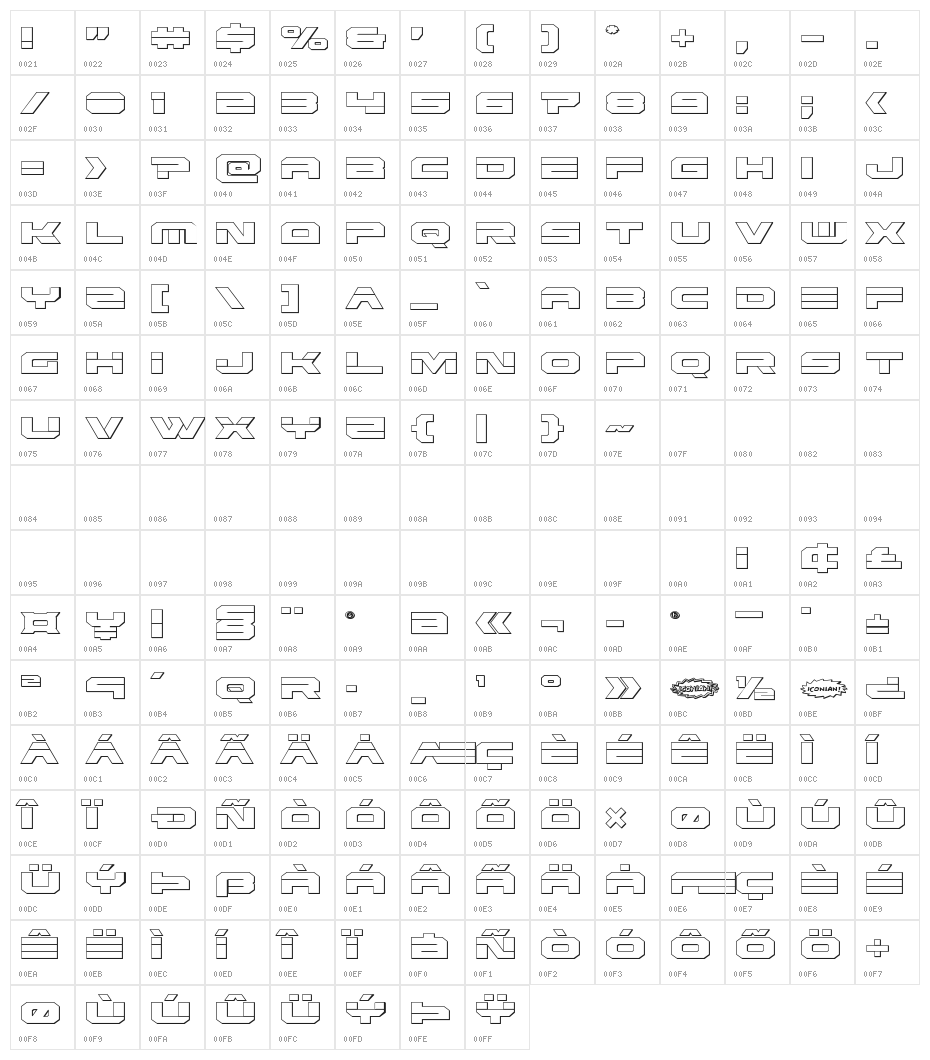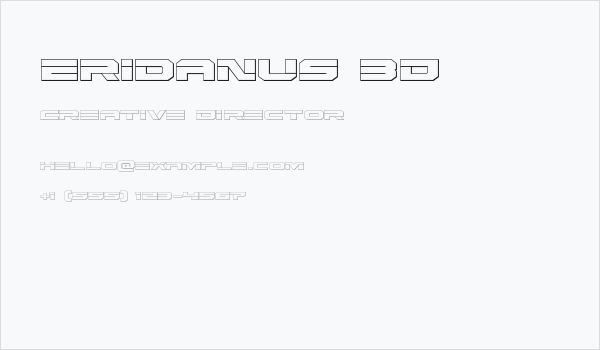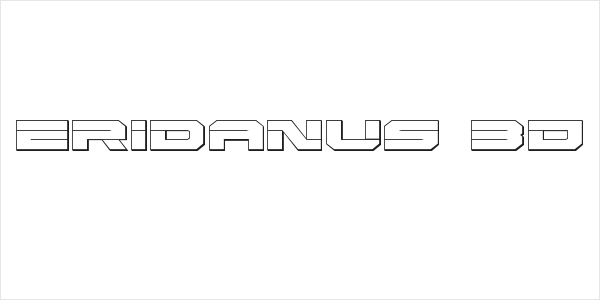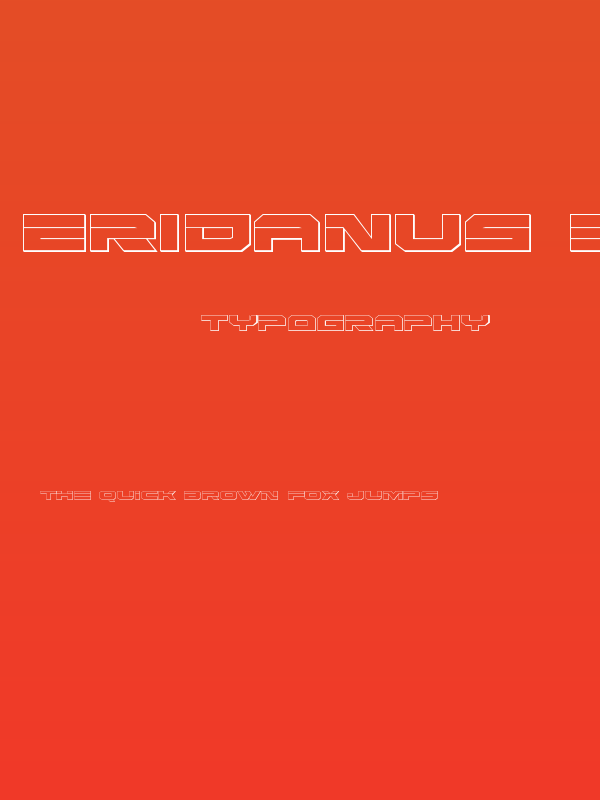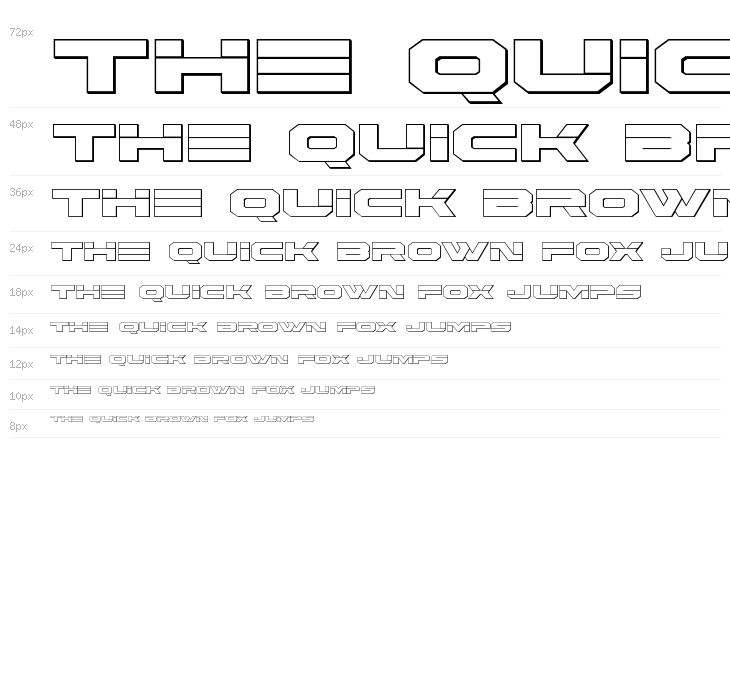
Eridanus 3D Font
Eridanus 3D Description
This font features a bold, geometric design with a three-dimensional effect. The characters are outlined, giving them a futuristic and tech-inspired appearance. The uppercase and lowercase letters maintain a consistent style, with sharp angles and clean lines. The numerals and special characters follow the same design principles, ensuring uniformity across all glyphs. This font's unique structure makes it stand out, ideal for projects that require a modern and innovative look.
Proposed ProjectsIdeal for tech branding, video game titles, sci-fi posters, and modern advertising.